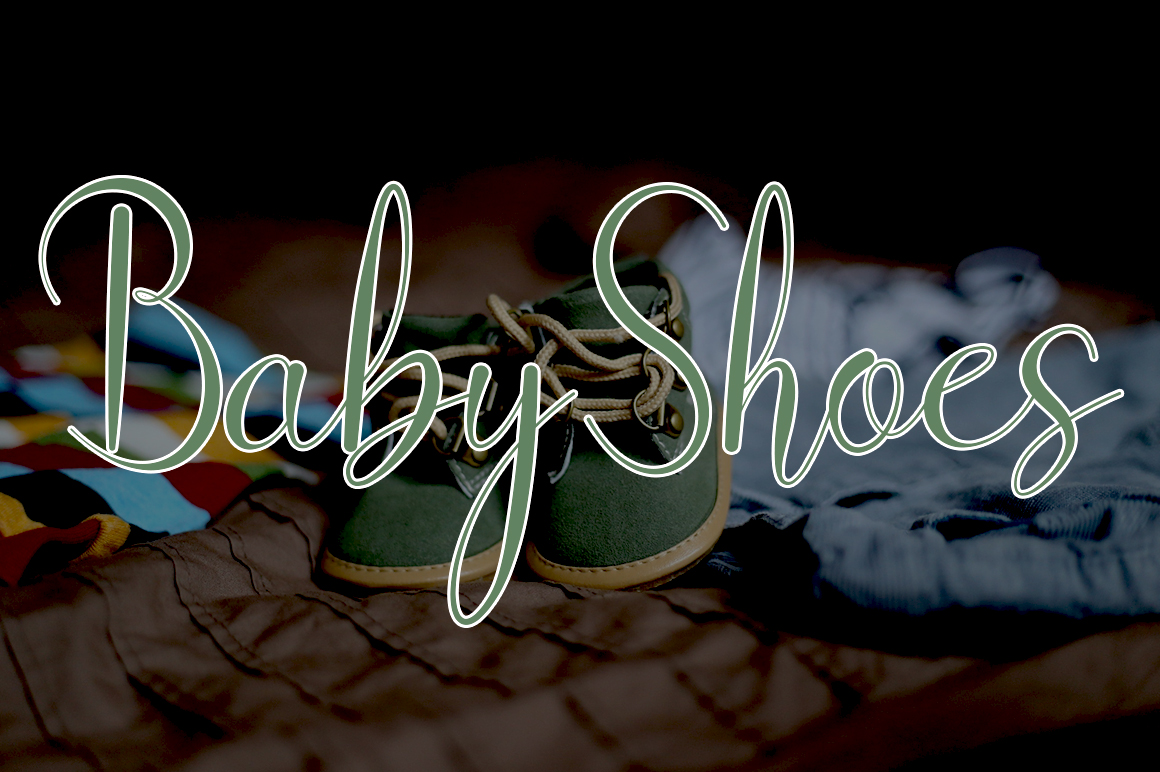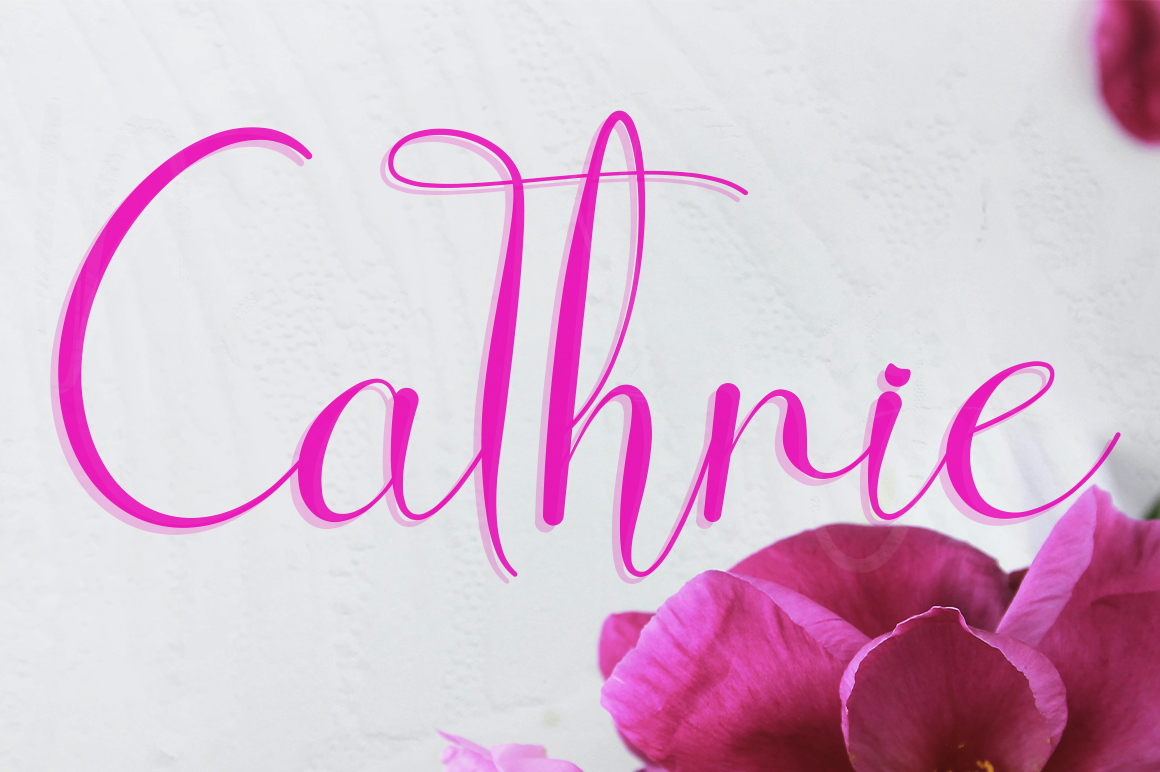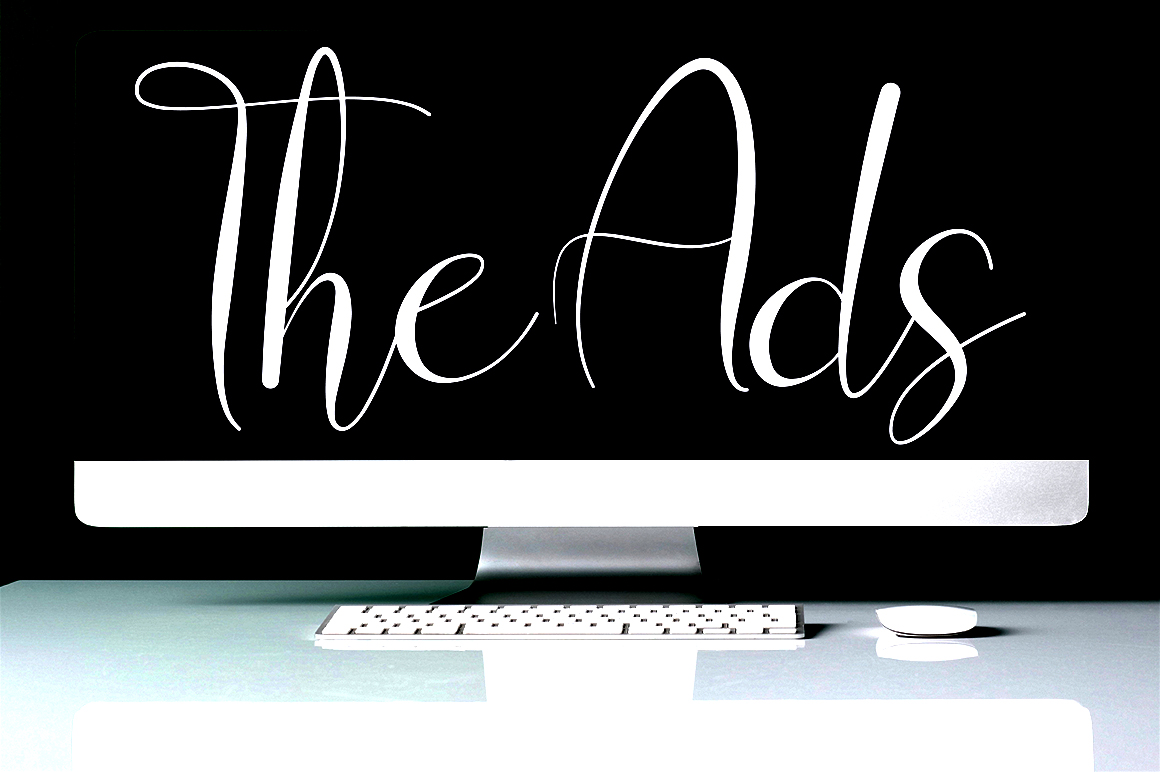
Cathrie Script Font
This is a dainty and enchanting script font. Add this romantic and lovely looking font to each of your love letters, wedding invitations or favorite design ideas, and you will be astounded by the outcome.